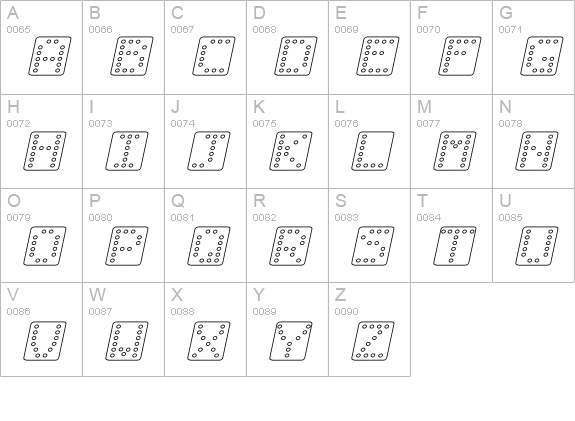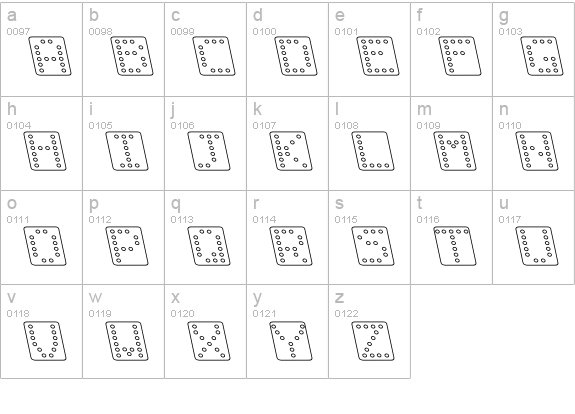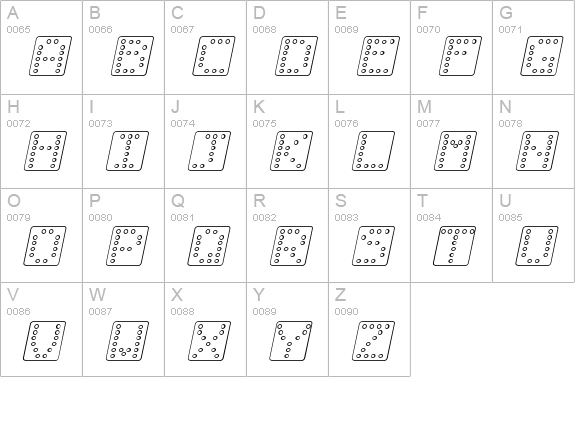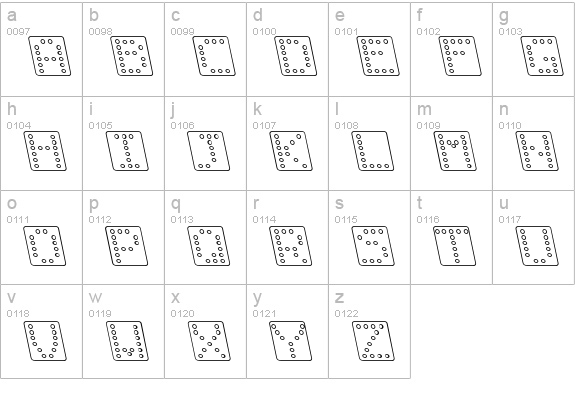
The Domino Square Kursiv Omrids font is a stylish and modern typeface that combines clean lines with a touch of elegance. Its unique design makes it perfect for a variety of projects, from branding to editorial design. This versatile font is sure to make your text stand out with its sleek and sophisticated look. Best of all, the Domino Square Kursiv Omrids font is available for free download at FontsMarket.com. Whether you're a designer looking for a fresh new font or a business owner in need of a sleek typeface for your marketing materials, this font is a great choice for any project. Download it today and add a touch of class to your designs with this stunning and contemporary font.